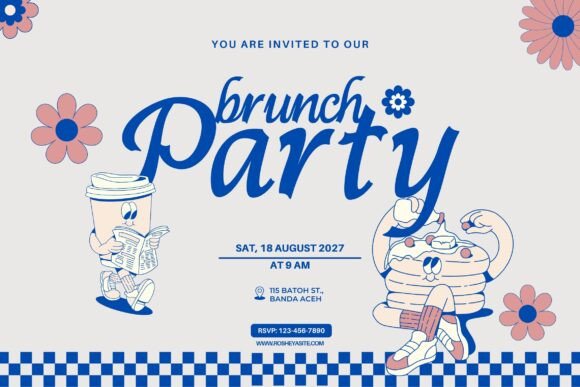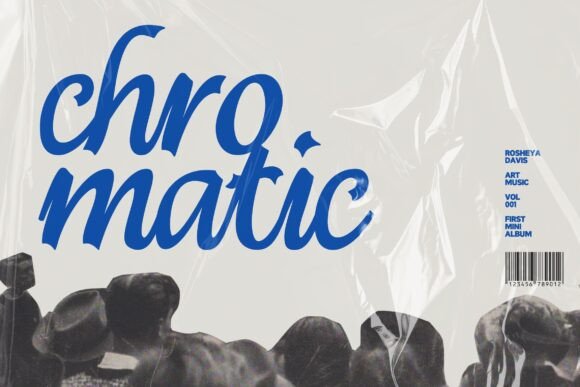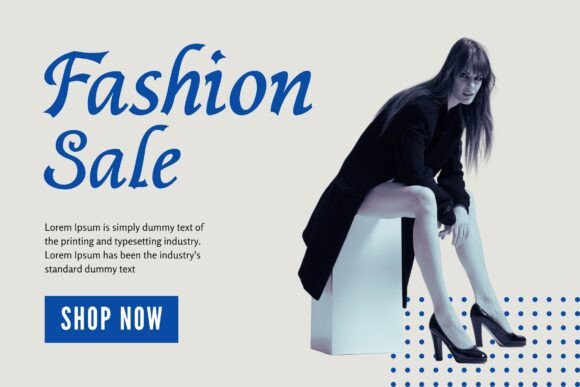
Introduction to Rosheya Font
Have you ever stared at a blank canvas, waiting for inspiration to strike? For designers, that moment of creative block can be frustrating, but also a chance to discover new design resources. For me, that moment came when I stumbled upon the Rosheya Font, a stunning typeface that effortlessly combines simplicity and script style.
As a designer, I know how valuable it is to have a reliable font that elevates every project. That’s exactly what Rosheya Font offers – a high-quality, elegant font that’s perfect for branding, invitations, packaging, or social media design. With its two lowercase styles, you can choose between a minimal simple font and a flowing semi-script font, both of which are free to download and feature a transparent background.
Key Features of Rosheya Font
- High-quality, professional font ideal for creative projects and design resources.
- Unique, elegant design with a transparent background, allowing for versatility in design applications.
- Perfect for use in digital design, including web design, graphic design, and print design.
Honest Review: Rosheya Font
As a designer, I’m always on the lookout for high-quality design resources to elevate my creative projects. Recently, I had the chance to try out the Rosheya Font, and I’m excited to share my honest review with you.
What works well: ✨ The Rosheya Font has a beautiful, elegant design that’s perfect for a variety of creative projects. It’s also incredibly versatile, making it a great addition to any design library. The font is available for free download, which is a huge plus for designers on a budget. I also appreciate the transparent background option, which makes it easy to customize and work with.
What doesn’t work well: ⚠️ One limitation I noticed is that the font is not as extensive as some other options on the market. While it’s a great addition to any design library, it may not be enough to meet the needs of more complex projects.
Overall, I’m impressed with the Rosheya Font. It’s a great free download that’s perfect for designers looking for a high-quality design resource. With its elegant design and transparent background option, it’s a great choice for any creative project.
- Perfect for creative projects
How to Use Rosheya Font
Tips for Getting the Most Out of Rosheya Font
Experiment with different font sizes, colors, and styles to create a unique design. Use the font’s transparent background option to create a subtle, layered look. Combine the Rosheya Font with other design resources, such as images and graphics, to create a visually appealing design.
Common Use Cases for Rosheya Font
The Rosheya Font is perfect for creative projects, including logos, branding materials, and marketing materials. Its high-quality design and transparent background option make it ideal for use in graphic design, digital art, and other creative pursuits.
No, the Rosheya Font is a solid font and does not have a transparent background. However, you can use it with a transparent background image or design element to create a unique and creative visual effect.